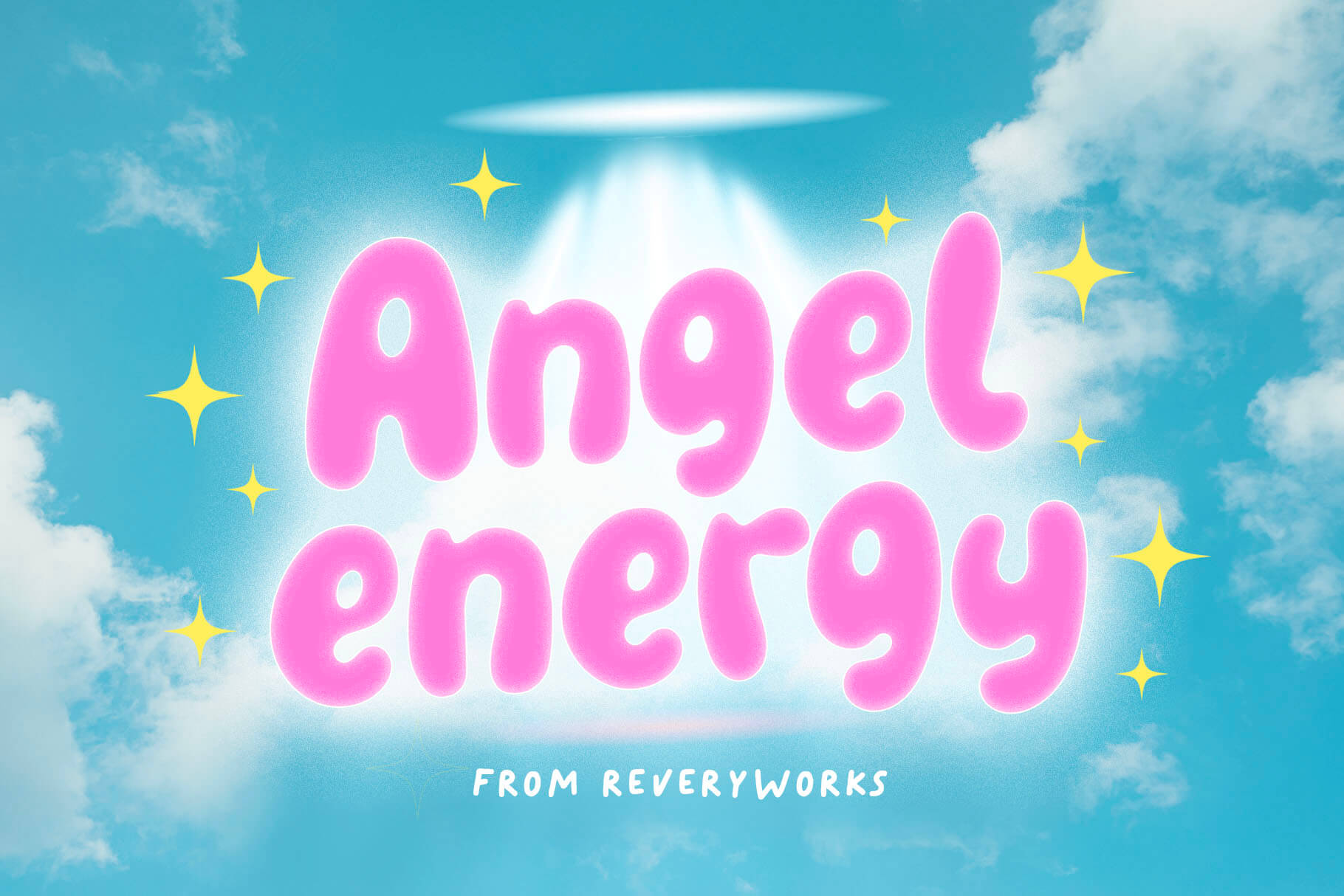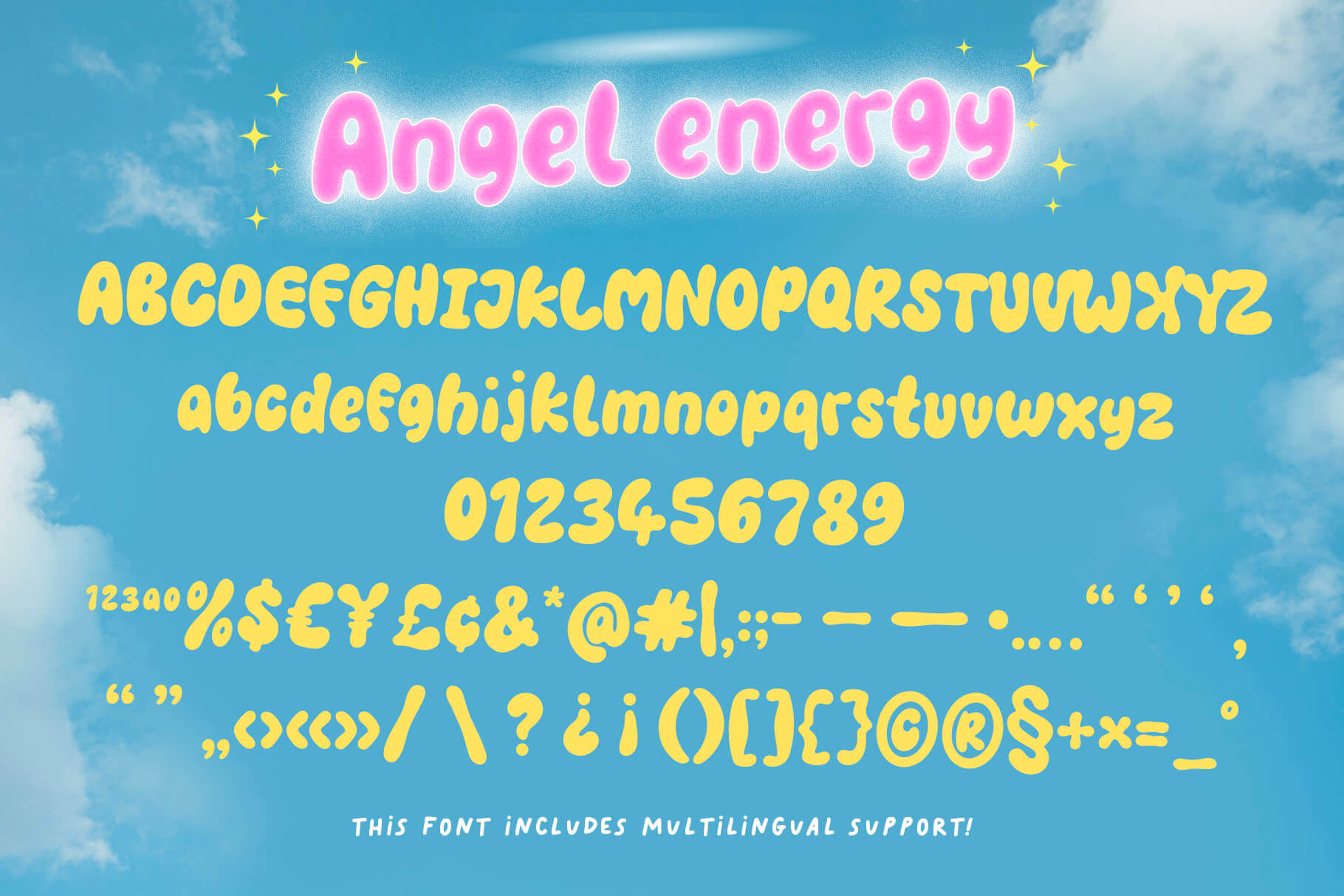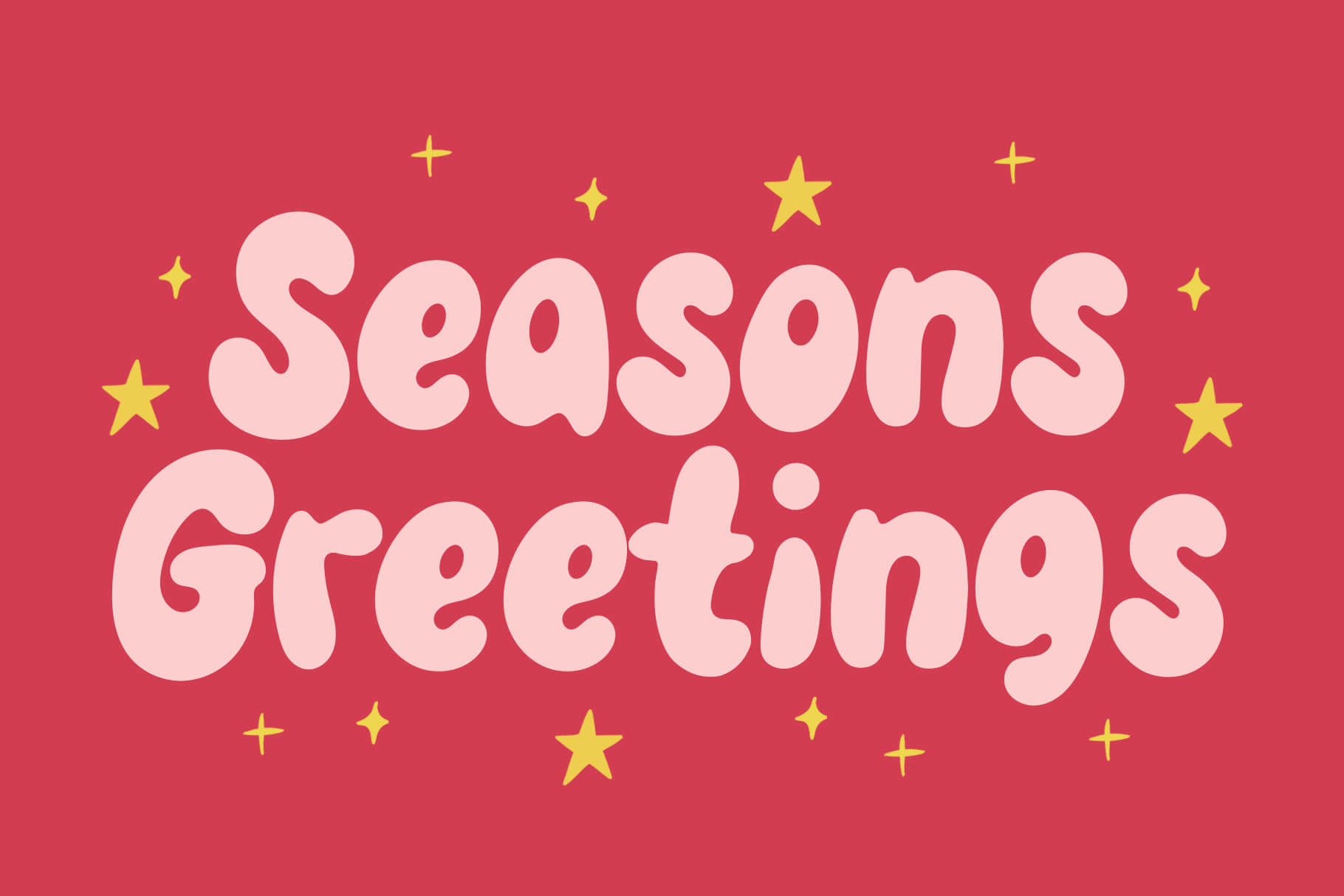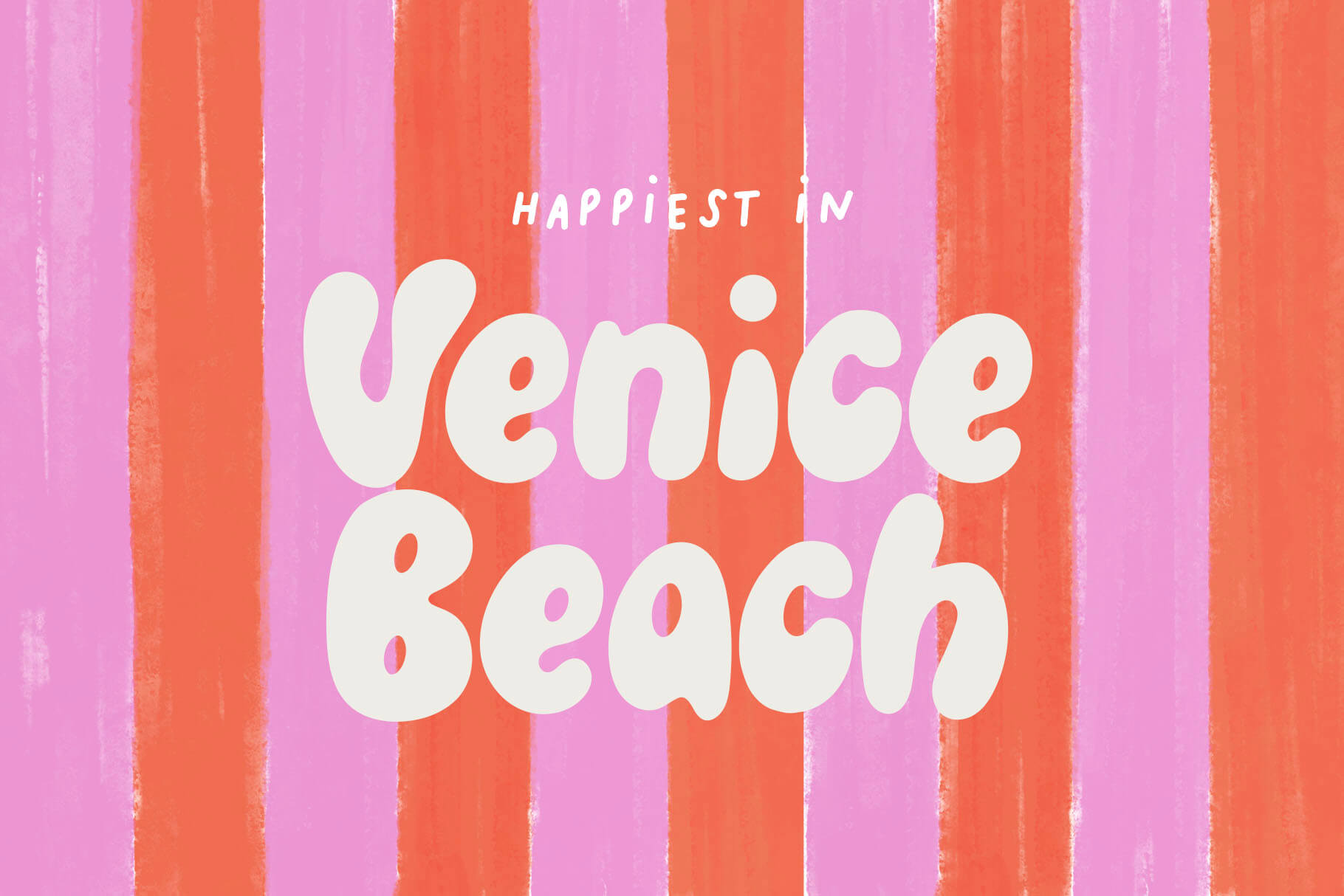
Angel Energy Font
Angel Energy Regular
Say hello to Angel Energy! A bubbly little font that is voluptuous and curvy in all the fun ways! Inspired by y2k graphics however it can be very versatile so take a peek at the previews above to get inspired!